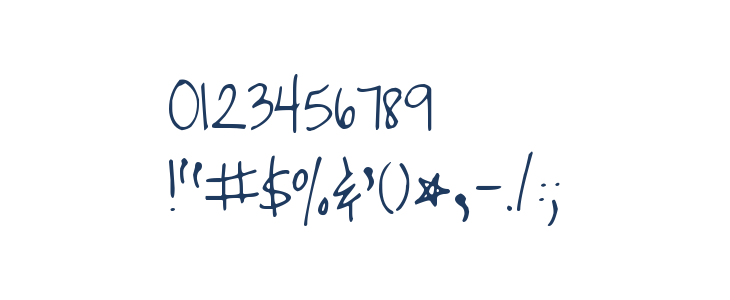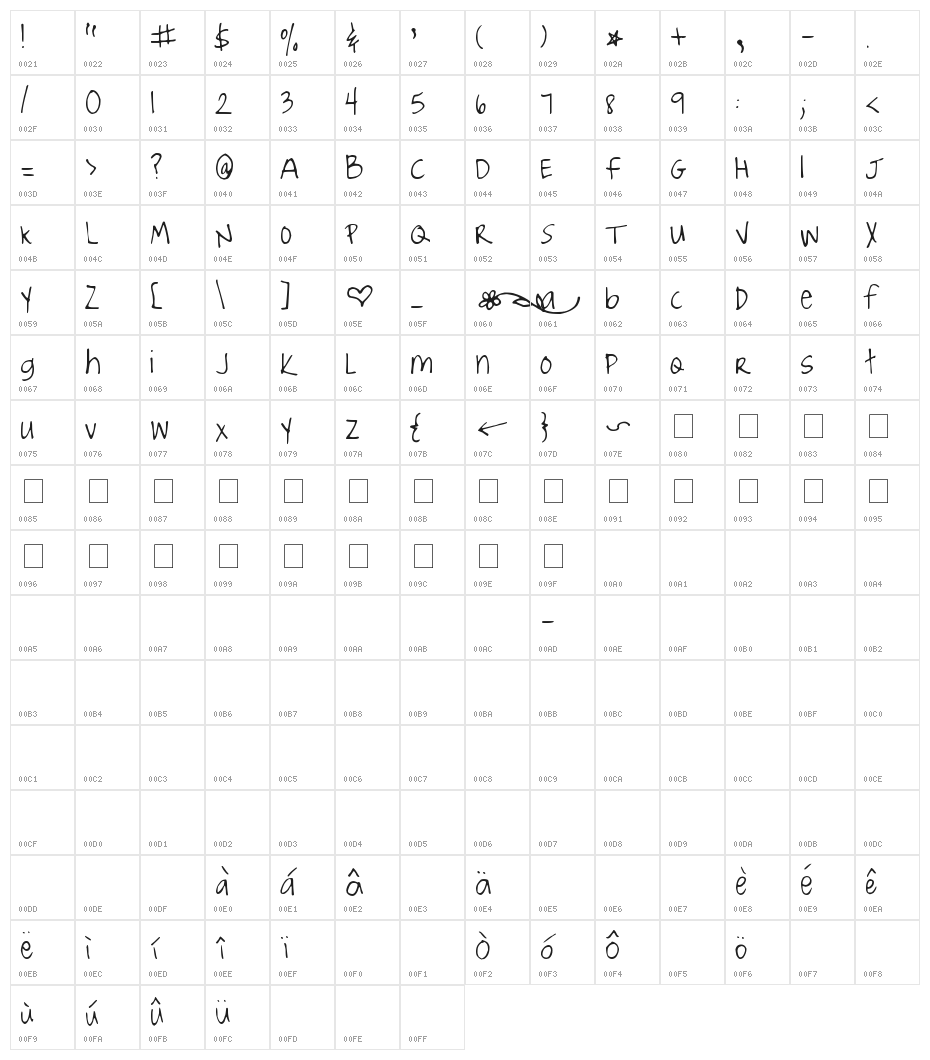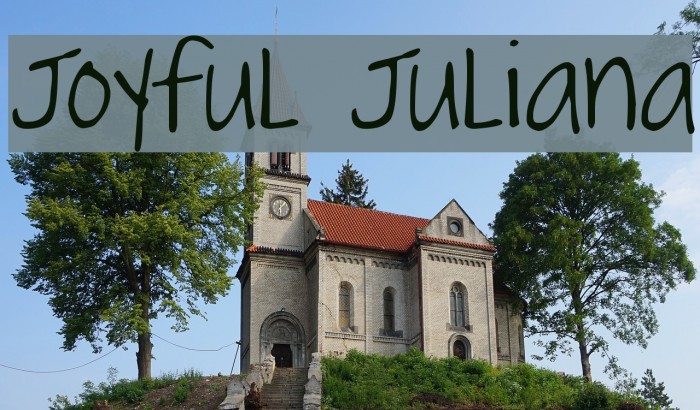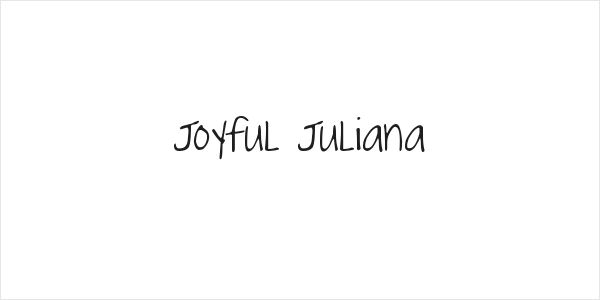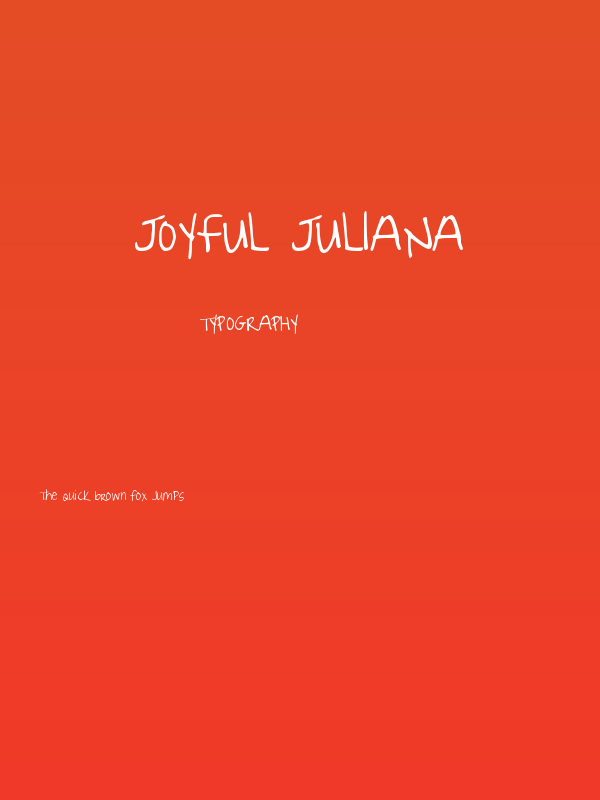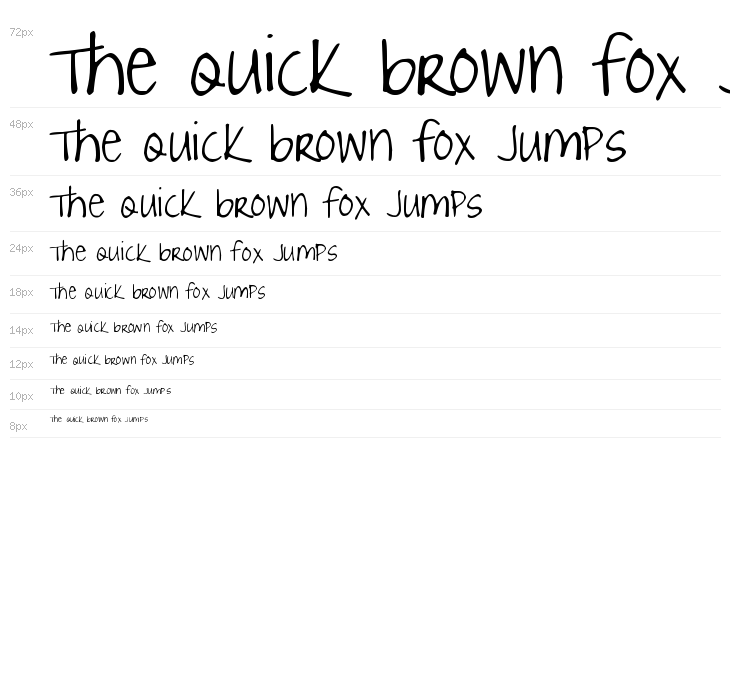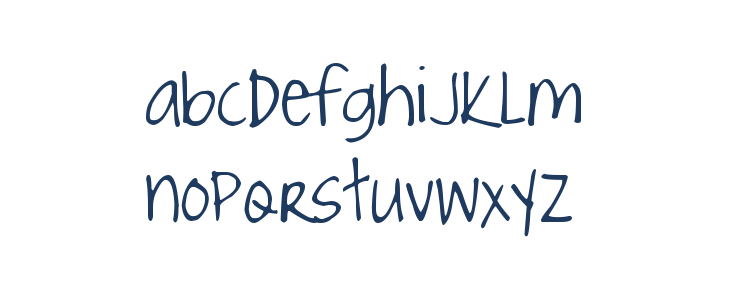
Joyful Juliana Font
Joyful Juliana Description
This playful and lively font exudes a sense of joy and spontaneity, with its hand-drawn, casual appearance. The letters are slightly irregular, giving it a personal and approachable feel. The strokes are uneven, adding to its whimsical charm, while maintaining legibility. The font features a mix of rounded and angular elements, creating a dynamic and energetic look. It includes a full set of uppercase and lowercase letters, numbers, and a variety of special characters, making it versatile for various design needs. The overall style is informal and friendly, perfect for projects that require a touch of personality and warmth.
| Use Case | Headlines, Informal Text, Creative Projects |
| Proposed Projects | Ideal for children's books, greeting cards, playful branding, and social media graphics. |